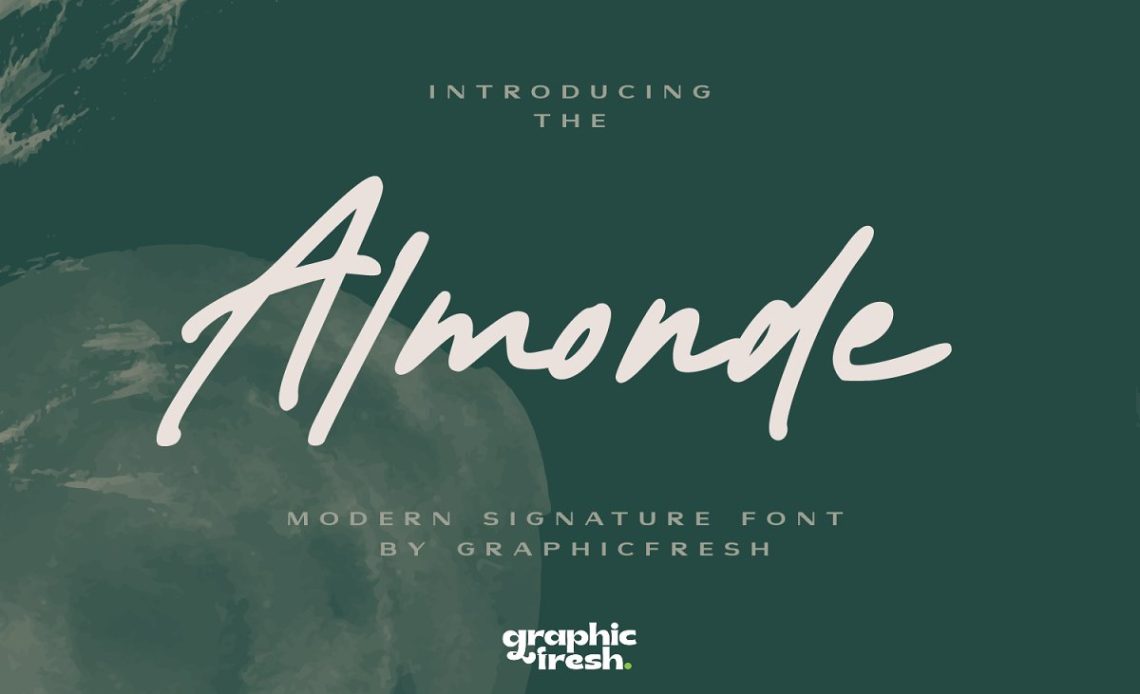
Introducing Almonde - the modern signature font created by Muhammad Husni Haikal that will take your designs to the next level! Almonde comes with an elegant and modern style that is perfect for making any design stand out. This script font is ideal for branding, wedding invites, magazines, mugs, business cards, quotes, posters, and more!
What sets Almonde apart from other fonts is its versatility. It is suitable for headlines, logotypes, signs, posters, letterhead, T-shirts, and many more. The font features both uppercase and lowercase letters, as well as numerals and punctuations, making it perfect for all kinds of design projects. It is also PUA encoded, which means it can be accessed easily and used with any software.
Almonde is not just any ordinary font - it is a font designed for signature in Word. Whether you're a freelancer, business owner, or creative professional, Almonde is the perfect choice for creating a signature that will impress your clients and colleagues. With its sleek and modern design, it will add a touch of elegance and sophistication to your emails, documents, and presentations.
In conclusion, if you're looking for a font that is not only stylish but also versatile and easy to use, then Almonde is the perfect choice. Its unique features, including its PUA encoding and suitability for signature in Word, make it a must-have for anyone who wants to elevate their design game. So why wait? Download Almonde today and start creating designs that will leave a lasting impression!